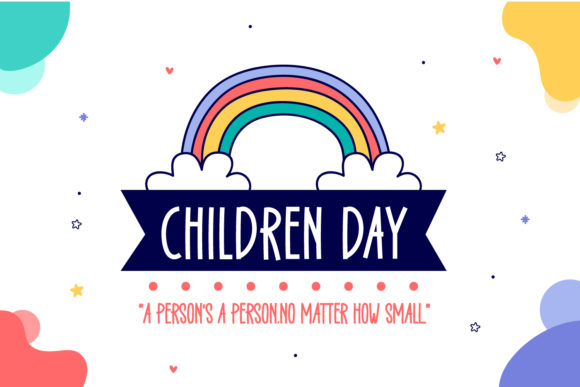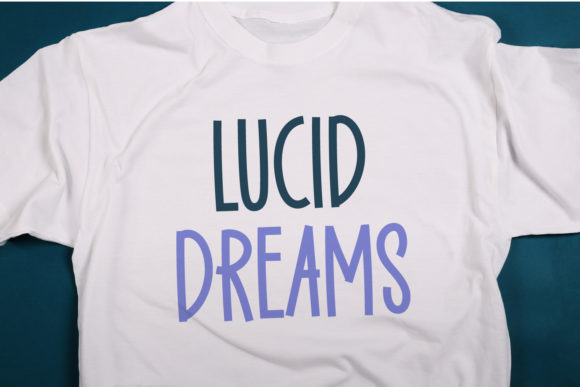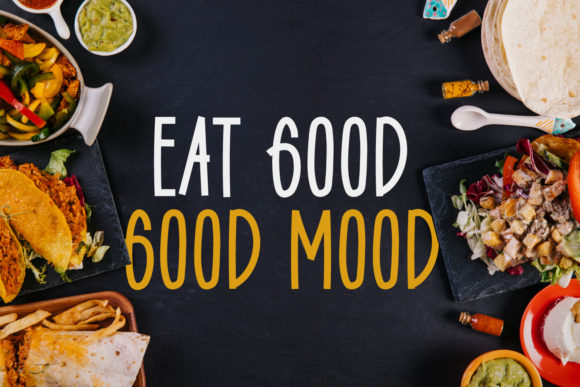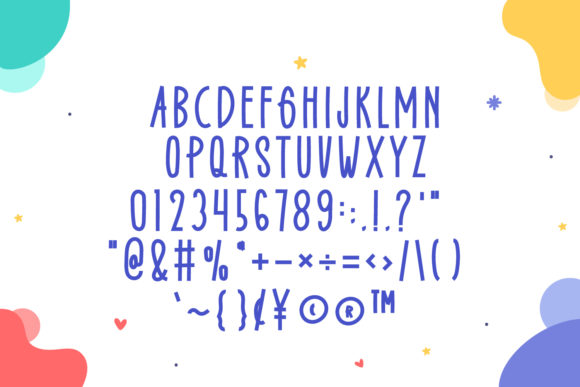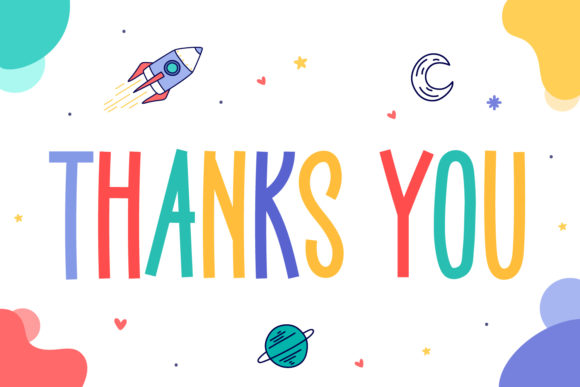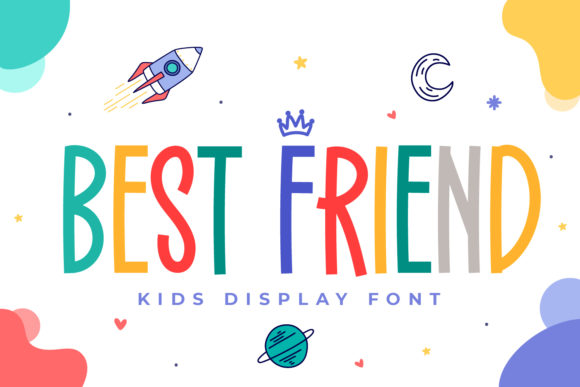
Introducing Best Friend Font: The Perfect Addition to Your Children’s Design Projects
Are you a designer or crafter looking for a fun and playful font to add to your children’s design projects? Look no further than Best Friend Font! This delightful display font is perfect for kids’ themed designs, especially when paired with bright and cheerful colors.
What Makes Best Friend Font So Special?
Best Friend Font is a unique and eye-catching font that is sure to capture the attention of kids and adults alike. Its fun and neat design makes it perfect for a variety of projects, from children’s party invitations and decorations to educational materials and crafts.
One of the standout features of Best Friend Font is its playful and whimsical feel. The font’s bold and rounded letters are designed to resemble handwritten text, giving it a friendly and approachable vibe that kids will love.
Perfect for Children’s Design Projects
Best Friend Font is specifically designed with children’s design projects in mind. Whether you’re creating:
- Children’s party invitations and decorations
- Educational materials, such as worksheets and activity sheets
- Crafts, such as DIY projects and coloring pages
- Kids’ clothing and accessories, such as t-shirts and tote bags
This font is sure to add a touch of fun and personality to your designs.
Why Pair Best Friend Font with Bright Colors?
When it comes to designing for kids, bright and bold colors are a must. Best Friend Font is designed to be paired with a variety of colors, but it’s especially stunning when combined with bright and cheerful hues.
Imagine using Best Friend Font in a design with a bold and bright color scheme, such as:
- Hot pink and electric blue
- Sunshine yellow and lime green
- Bright orange and purple
The result is a design that’s sure to capture the attention of kids and put a smile on their faces.
Tips for Using Best Friend Font in Your Designs
Here are a few tips for using Best Friend Font in your designs:
- Use it as a headline font to add a touch of fun and personality to your design
- Pair it with a simpler font for body text to create visual interest
- Experiment with different colors and textures to add depth and dimension to your design
- Don’t be afraid to get creative and try out new and unique design ideas!
Best Friend Font is a fun and playful display font that’s perfect for children’s design projects. Its unique and eye-catching design makes it a great addition to any project, from party invitations and decorations to educational materials and crafts.
By pairing Best Friend Font with bright and cheerful colors, you can create designs that are sure to capture the attention of kids and put a smile on their faces. So why not give Best Friend Font a try and see the difference it can make in your designs?